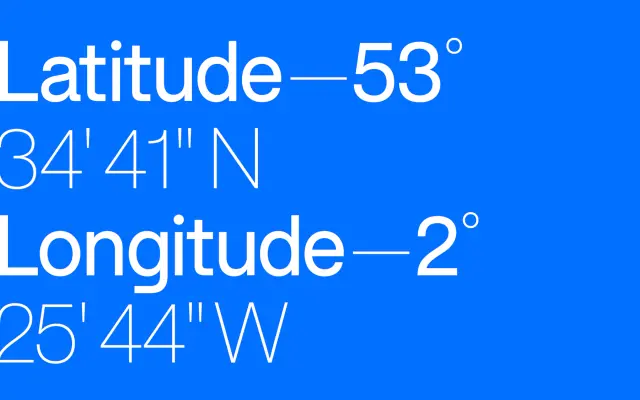
F37 Bolton
A brand sans with flat horizontal ascenders and descenders, ten weights deep and ranging from Hair to SuperBold.
A geometric sans built for identity work. Twenty styles run across ten weights from Hair to SuperBold with matching italics, and the family extends into Arabic, Cyrillic and Greek for multi-script systems. The defining detail is the cut-off ascenders and descenders, which give Bolton a tight, slab-like vertical rhythm without committing to a slab serif.
F37 describe Bolton as a brand sans with distinctive flat, perfectly horizontal ascenders and descenders, an unusual approach that gives it a strong typographic colour at display sizes.